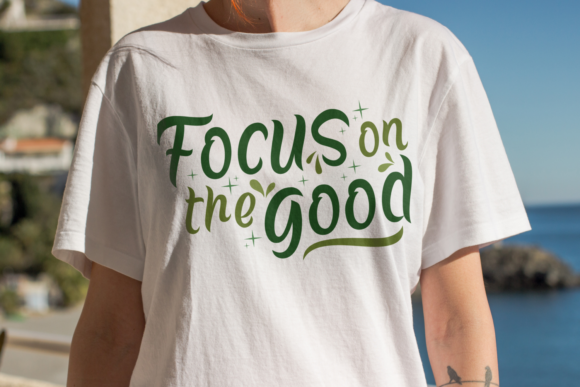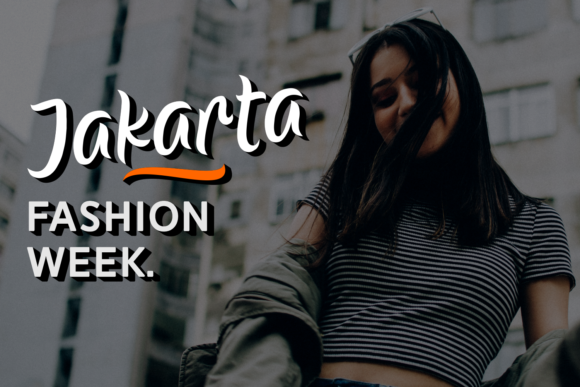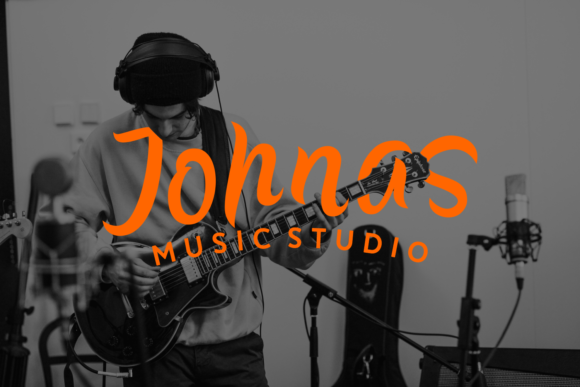
HomeScript FontsRachelia Font Script Fonts Rachelia Font FacebookXPinterestWhatsApp Rachelia Font Poster 2 Rachelia Font Poster 3 Rachelia Font Poster 4 About Rachelia Font Rachelia is a simple, yet elegant handwritten font with organic curves and a smooth style. DOWNLOAD ON CREATIVE FABRICAThis font is sold and delivered by Creative Fabrica. Font Canyon may earn a commission if you buy through this link. People also explored Skeletal Wish Rustte Font Sleoder Font Zigasto Font Annitha Font Photograph Font The Carbs Font Doodle Chunky Font Element 120 314 0 TagsRachelia Font Previous articleAngelinado FontNext articleRuthfully Font LEAVE A REPLY Cancel reply Comment: Please enter your comment! Name:* Please enter your name here Email:* You have entered an incorrect email address! Please enter your email address here Website: Save my name, email, and website in this browser for the next time I comment. Personal Use Free Super Caramel Font Personal Use Free Read more about this font Jabirah Personal Use Free Read more about this font Theobald Personal Use Free Read more about this font Hello Holiday Personal Use Free Read more about this font BLOG Transform Your Website: Elevate Your Typography with 7 Best Web Font Generators Are you ready to transform your website's typography from ordinary to extraordinary? Great! Today, we're diving into the world of web font generators, which... Elegant Wedding Invitation Fonts – Handwritten & Script Fonts Exploring Font Trends How to Cut Any Font on Cricut: Convert a Font to SVG (Free)